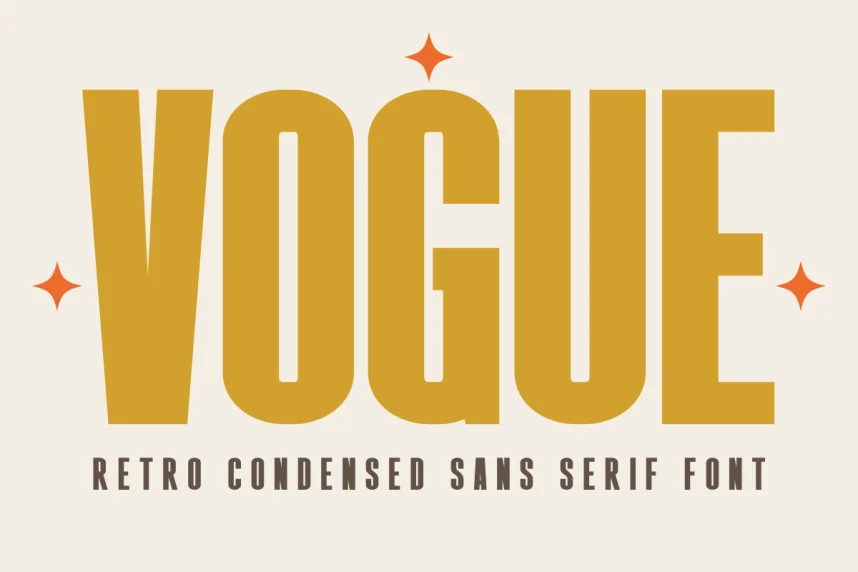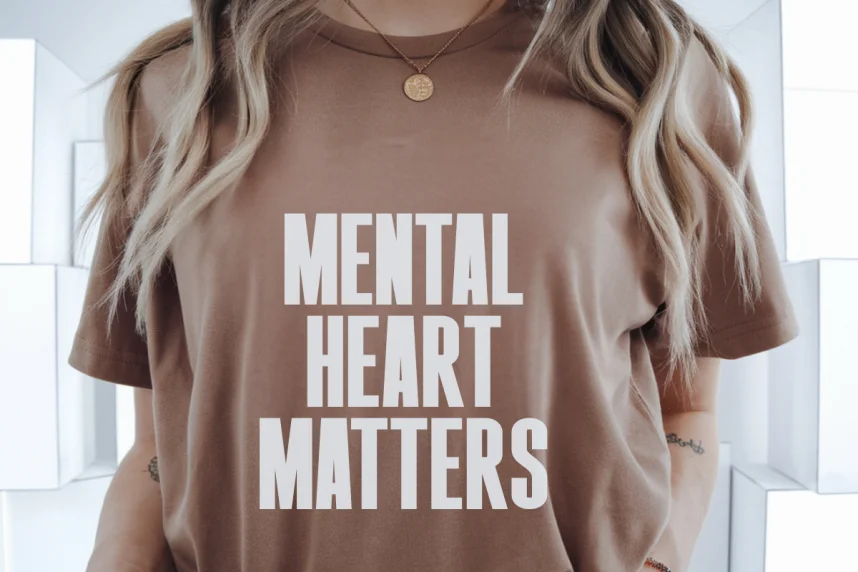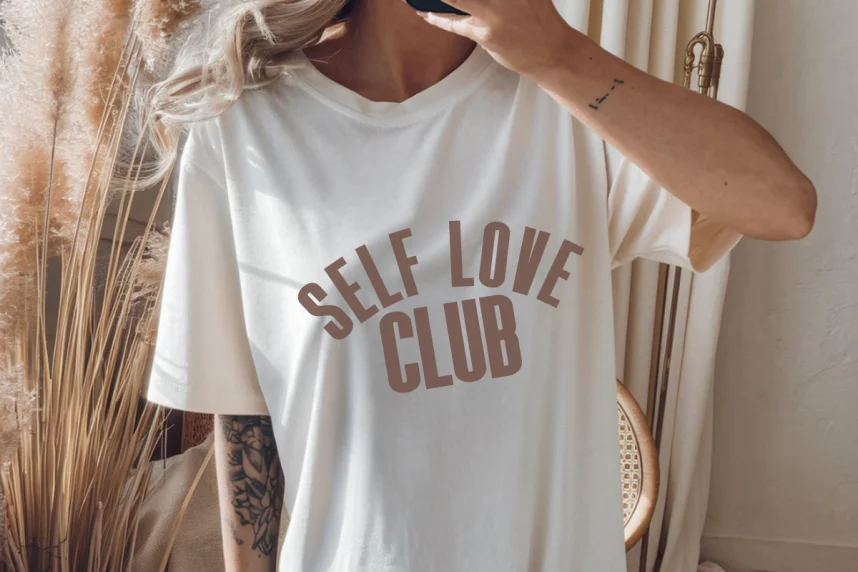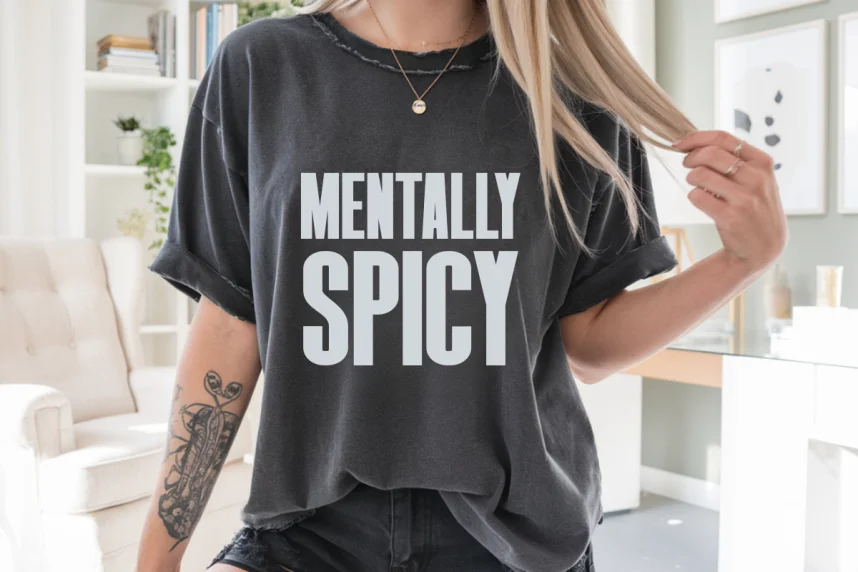
Vogue Condensed Font is a stylish, condensed sans-serif typeface that offers both modern elegance and space efficiency. Its narrow letterforms and clean lines make it ideal for use in tight spaces, such as headlines, logos, and magazine layouts.
Perfect for magazine titles, advertisements, and website headings, Vogue Condensed Font pairs well with both serif and sans-serif fonts for body text. Available in TTF and OTF formats, this font includes a commercial-use license. Be sure to verify the license for commercial applications.